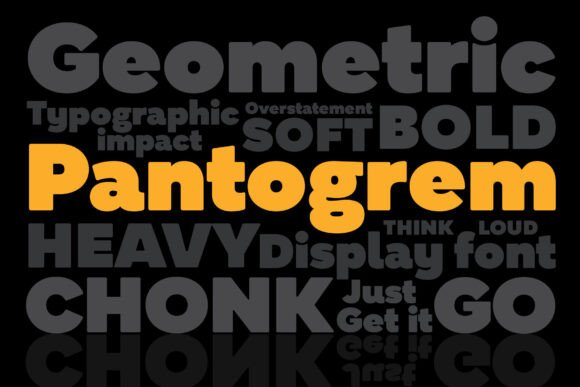
Pantogrem Font: A Bold and Versatile Typeface for Modern Design
In the world of typography, fonts play a crucial role in conveying messages, expressing emotions, and creating visual identities. Among the numerous typefaces available, Pantogrem stands out as a bold, heavyweight font that combines soft, rounded edges with a clean, contemporary aesthetic. Designed with modern design sensibilities in mind, Pantogrem strikes a balance between strength and approachability, making it an excellent choice for a wide range of visual communications.
Characteristics of Pantogrem Font
Pantogrem is characterized by its generous letterforms and smooth curves, ensuring excellent legibility at larger point sizes. This makes it particularly well-suited for display applications where visual impact is crucial. The font’s soft, rounded edges give it a friendly and approachable feel, while its bold and heavyweight design ensures that it commands attention.
One of the key features of Pantogrem is its versatility. The font can be used for a variety of applications, from creating eye-catching posters and headline text to designing logos, product packaging, and cohesive branding materials. Its clean and contemporary aesthetic ensures that it blends seamlessly with modern design sensibilities, making it an excellent choice for designers looking to create visually appealing and effective communications.
Design Philosophy Behind Pantogrem
The design philosophy behind Pantogrem is centered around creating a balance between strength and approachability. The font’s bold and heavyweight design gives it a strong visual presence, while its soft, rounded edges ensure that it remains friendly and approachable. This balance makes Pantogrem an excellent choice for designers looking to create visual communications that are both impactful and inviting.
The font’s clean and contemporary aesthetic is also a key aspect of its design philosophy. Pantogrem is designed to be versatile and adaptable, making it suitable for a wide range of applications and industries. Whether you’re creating posters, logos, or branding materials, Pantogrem provides a solid foundation for effective visual communication.
Uses of Pantogrem Font
Pantogrem is a versatile font that can be used for a variety of applications. Some of the most common uses of Pantogrem include:
- Display Applications: Pantogrem’s excellent legibility at larger point sizes makes it well-suited for display applications such as posters, billboards, and digital displays.
- Headline Text: The font’s bold and heavyweight design makes it an excellent choice for headline text, providing a strong visual impact that draws the reader’s attention.
- Logo Design: Pantogrem’s clean and contemporary aesthetic makes it an excellent choice for logo design, providing a solid foundation for creating visually appealing and effective logos.
- Product Packaging: The font’s versatility and adaptability make it suitable for product packaging, providing a professional and modern look that enhances the product’s visual appeal.
- Branding Materials: Pantogrem can be used to create cohesive branding materials such as brochures, flyers, and business cards, providing a consistent visual identity that reinforces the brand’s message.
Benefits of Using Pantogrem Font
There are several benefits to using Pantogrem font in your visual communications. Some of the most significant advantages include:
- Improved Legibility: Pantogrem’s generous letterforms and smooth curves ensure excellent legibility at larger point sizes, making it easy to read and understand.
- Versatility: The font’s clean and contemporary aesthetic makes it suitable for a wide range of applications and industries, providing a versatile solution for designers.
- Strong Visual Impact: Pantogrem’s bold and heavyweight design provides a strong visual impact that draws the reader’s attention, making it an excellent choice for display applications and headline text.
- Professional Look: The font’s modern and sleek design provides a professional look that enhances the visual appeal of any material, making it suitable for branding materials, product packaging, and more.
How to Use Pantogrem Font Effectively
To use Pantogrem font effectively, it’s essential to consider the context and purpose of your visual communication. Here are some tips for using Pantogrem font effectively:
- Choose the Right Size: Pantogrem is designed for display applications, so it’s essential to use it at larger point sizes to maximize its impact.
- Pair with Other Fonts: Pantogrem can be paired with other fonts to create visual interest and hierarchy. Choose fonts that complement Pantogrem’s clean and contemporary aesthetic.
- Use Color Effectively: Color can enhance the visual impact of Pantogrem. Choose colors that complement the font and provide sufficient contrast to ensure legibility.
- Consider the Context: Consider the context and purpose of your visual communication when using Pantogrem. The font is versatile, but it’s essential to ensure that it aligns with your message and audience.
- Is Pantogrem font legible? Yes, Pantogrem font is designed for excellent legibility at larger point sizes, making it easy to read and understand.
- Can Pantogrem font be used for body text? While Pantogrem font is designed for display applications, it can be used for body text in certain contexts. However, it’s essential to consider the legibility and readability of the font at smaller point sizes.